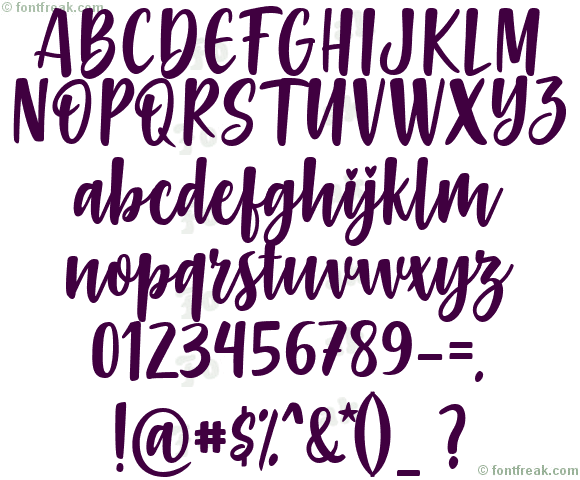
Gabelisa
About Gabelisa
Gabelisa, designed by Situjuh Nazara in 2018, is a striking script font that beautifully combines elegance with a modern flair. This font falls into the category of handwritten typefaces, exuding a personal touch that is perfect for a variety of design projects. Its visual characteristics include smooth, flowing strokes with a medium contrast that enhances legibility while still maintaining an artistic charm. The letters feature a slightly varying stroke weight, providing a dynamic feel, and the spacing is well-balanced, ensuring that the text remains cohesive and easy to read.
Gabelisa is particularly well-suited for use cases such as wedding invitations, where its graceful style can evoke romance and intimacy. It also shines in branding efforts for small businesses, especially those in the creative sector, as it helps convey a unique and friendly personality. Additionally, this font can elevate restaurant menus, adding a touch of sophistication that appeals to diners. Movie posters can benefit from Gabelisa's expressive flair as well, capturing attention and conveying emotion effectively.
Targeting graphic designers, small business owners, and content creators, Gabelisa offers versatility and style that can enhance any design project. Whether you are crafting a personal blog or developing professional marketing materials, this font provides a distinctive voice.
What sets Gabelisa apart is its ability to blend artistic expression with practicality. The font manages to maintain readability while delivering a strong visual impact, making it a valuable asset for any designer's toolkit. For those looking to incorporate this charming typeface into their work, the Gabelisa font free download is an excellent opportunity to explore its potential.